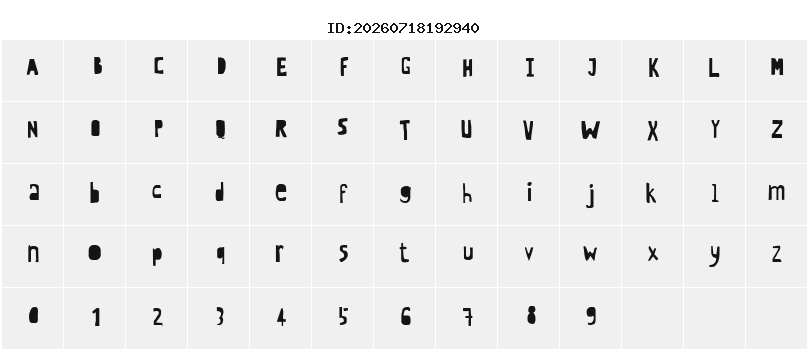
• Font Name: CrewHassan
• Designer: kin, joakin
About CrewHassan.ttf
CrewHassan.ttf is a modern, elegant sans-serif font designed for ultimate readability and visual harmony. Perfect for branding, headlines, web design, and print materials.